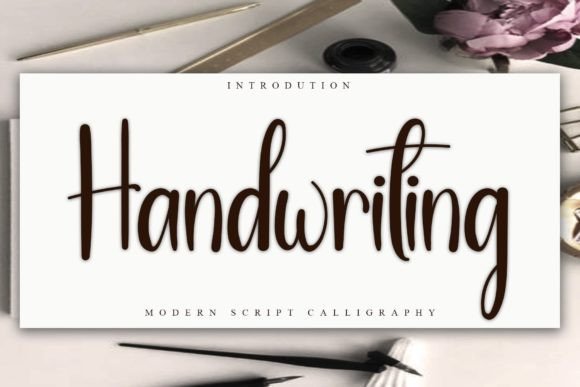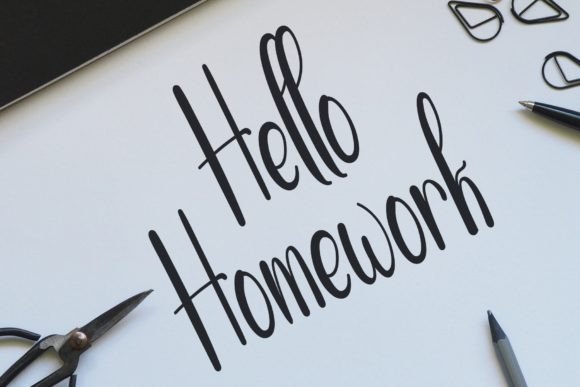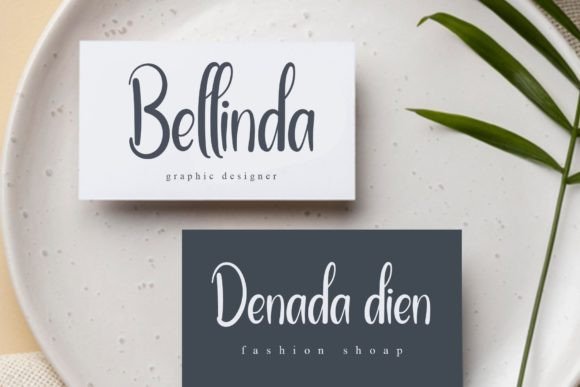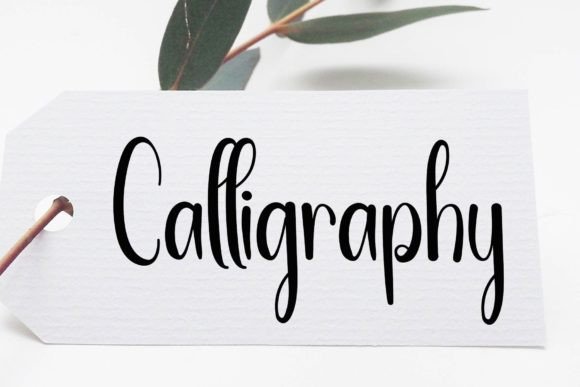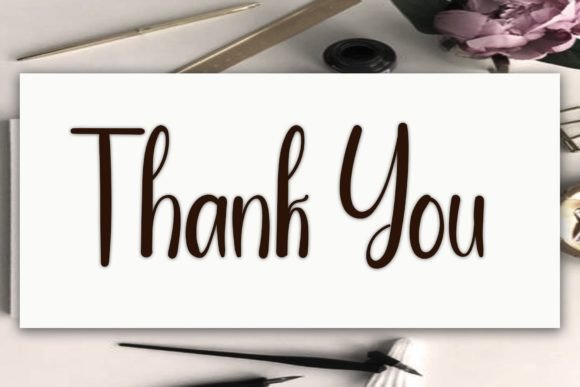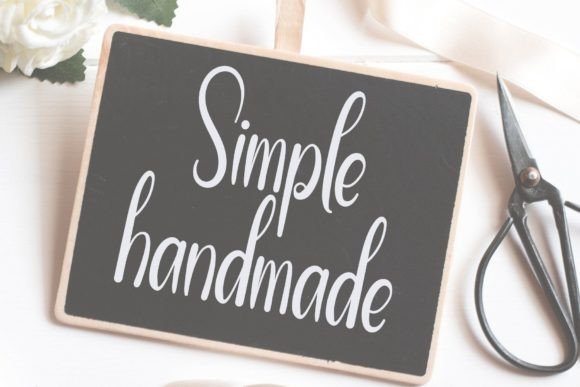
Handwriting Font
About Handwriting Font
Handwriting is an elegant handwritten font that seamlessly blends classic decorative script elements with a modern touch, resulting in a font that exudes sophistication and style. The font is meticulously crafted, showcasing a high level of detail to ensure a beautiful and refined character design.
The elegant nature of Handwriting makes it a versatile choice for a wide range of design projects. Whether you’re working on invitations, branding materials, product packaging, or any other creative endeavor, this font adds a touch of class and timeless elegance to your work.
One of the notable features of Handwriting is its beautiful character changes. Each letter is thoughtfully designed to create a harmonious and visually appealing flow, contributing to the overall elegance of the font. The attention to detail in the character design enhances the font’s aesthetic and makes it stand out in various applications.
The classic decorative script elements incorporated into Handwriting add a sense of tradition and sophistication. However, the font also embraces a modern touch, striking a perfect balance that makes it relevant for contemporary design trends. This blend of classic and modern design elements makes Handwriting a font that can adapt to a variety of creative concepts.
Handwriting’s versatility extends to its suitability for different mediums, whether it’s print or digital. The font maintains its elegance and legibility across various platforms, ensuring a consistent and polished look for your projects.
Overall, Handwriting is not just a font; it’s a design tool that brings an elevated and refined aesthetic to your creations. Its elegant handwritten style, coupled with the classic and modern design elements, allows you to infuse your projects with a touch of sophistication. For those seeking a font that combines tradition with contemporary flair, Handwriting stands out as a choice that delivers both elegance and timeless appeal.